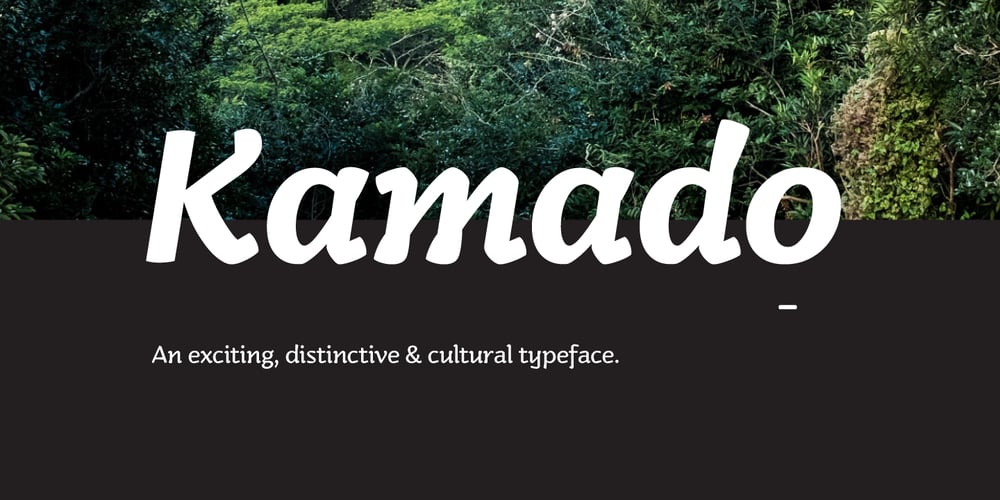
Kamado Font Family was designed by Rebecca Armstrong and published by Hashtag Type. Kamado contains 12 styles and family package options. Kamado began its journey as an experimental typeface with a cultural essence. Influenced by type around the globe during my studies. The result… a plausible and exciting typeface! The rhythm of each letter is fundamental to the design, each exploring and exaggerating the way it can be drawn with continuous strokes… full of character. Kamado has a very distinctive look, which would give a clear awareness of a brand. Kamado works great in many type settings. Its variety of weights provides a range of choices that will help you find the best typographic effect for your project. Details include twelve weights including italics, over 470 characters, manually edited kerning, ligatures and case-sensitive punctuation.